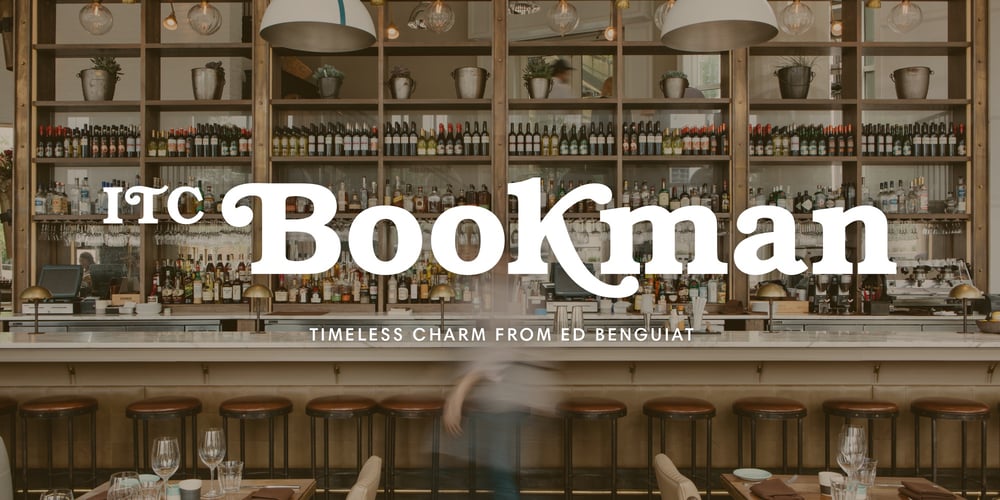
ITC Bookman
ITC Bookman font
ITC Bookman Font Family was designed by Edward Benguiat and published by ITC. ITC Bookman contains 8 styles and family package options. ITC Bookman font was designed by Edward Benguiat, whose goal was to design a typeface that had a clear resemblance to previous Bookman faces but was different and more versatile. This typeface retains all the traits of the original and adds a large x-height and moderate stroke contrast for optimal legibility. ITC Bookman font also has italics which are true cursive forms, as opposed to oblique roman characters.Featured in: Best Fonts for Tattoos